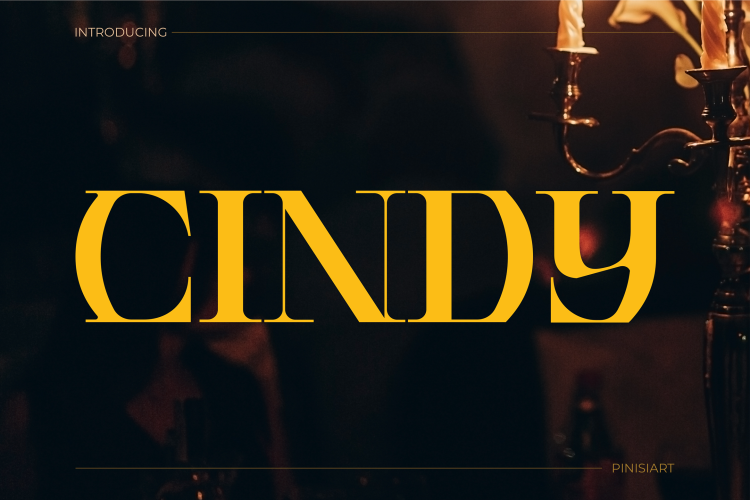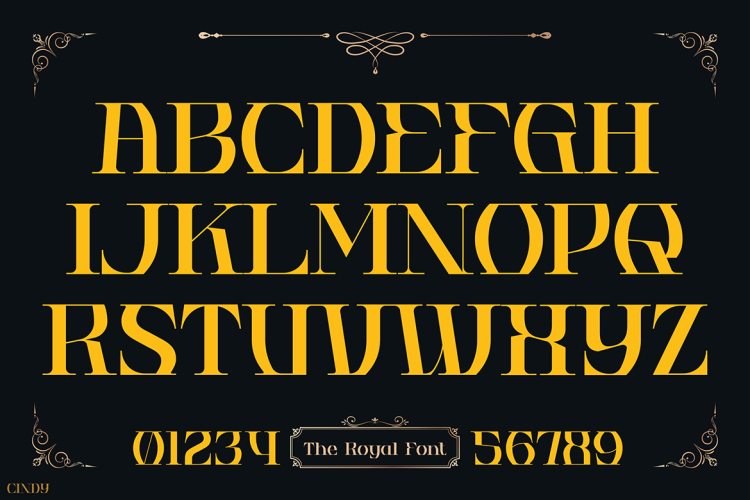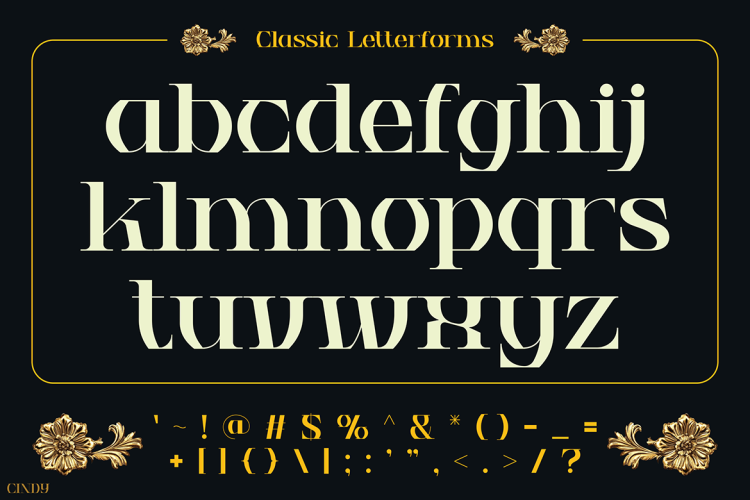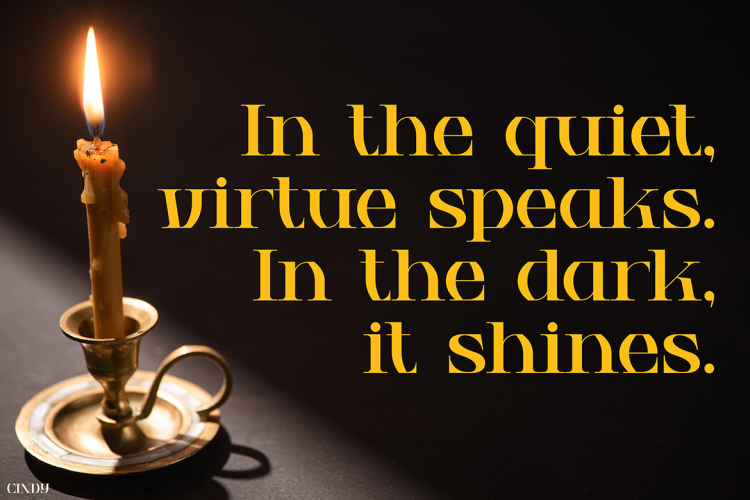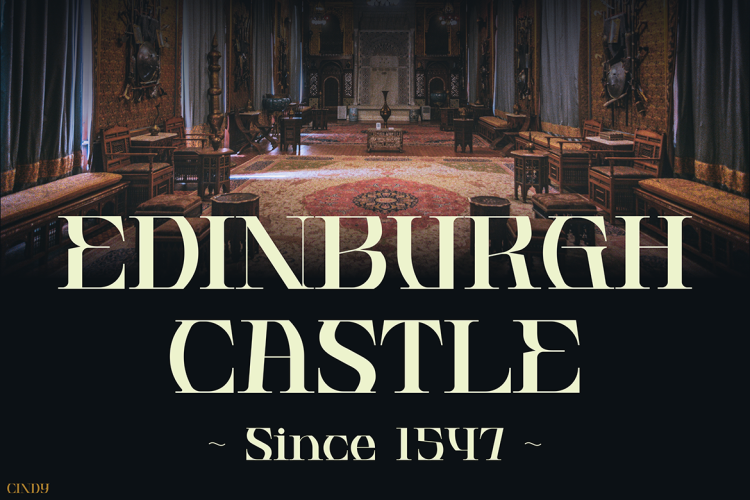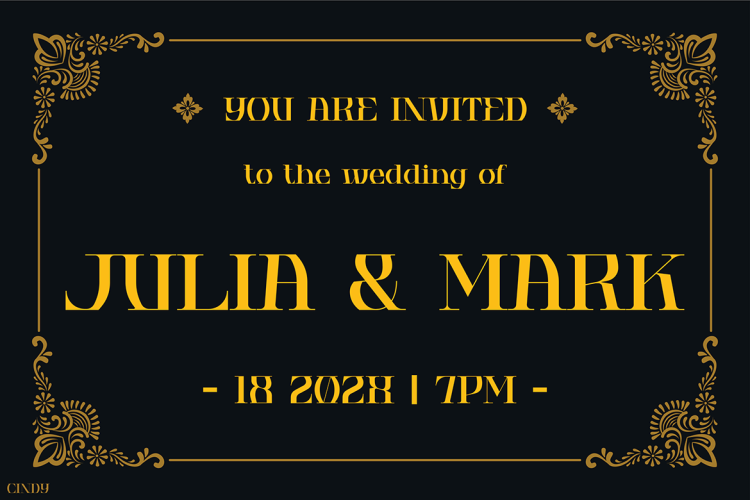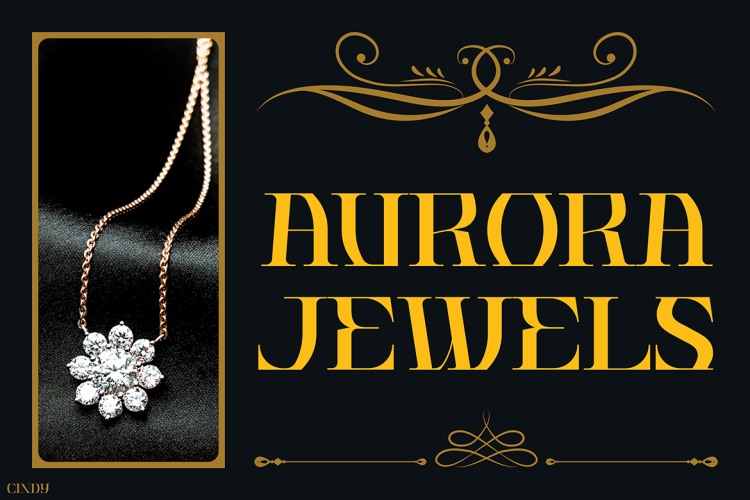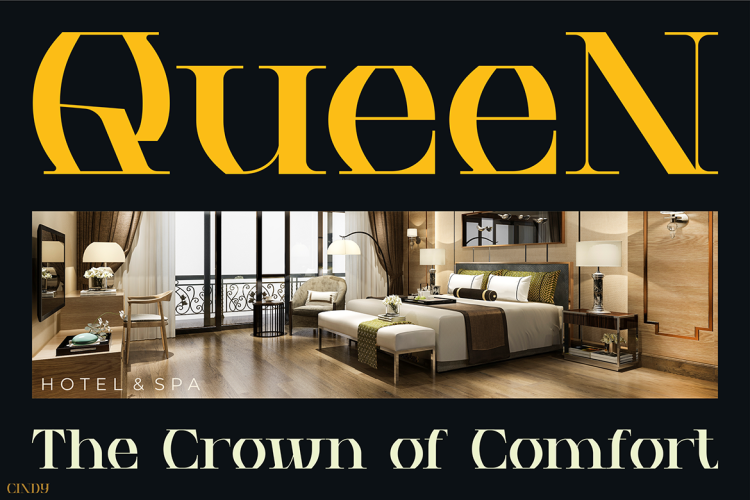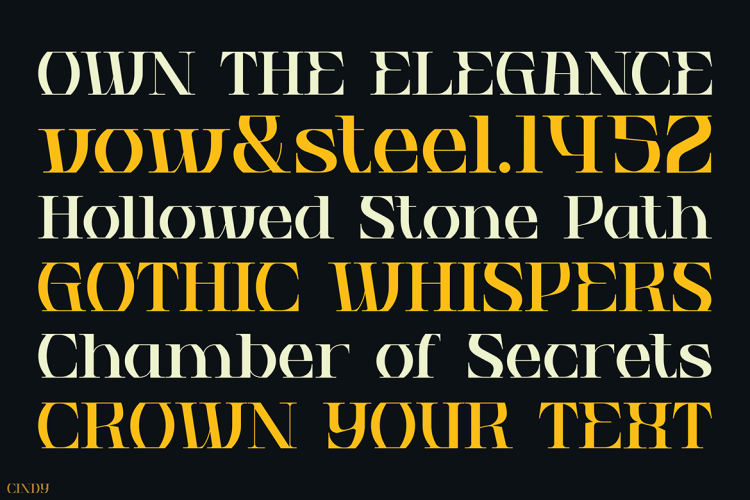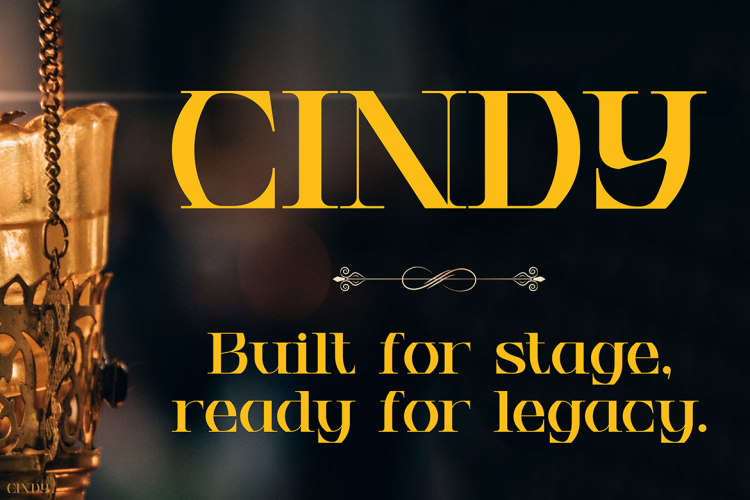
Instagram Font CINDY โ A Bold Elegance for Timeless Designs
Instagram Font CINDY instantly brings character and charm to your design projects. This elegant serif typeface merges vintage appeal with a modern twist, offering a unique blend of style and readability. As a result, every word you write with CINDY feels intentional, bold, and beautiful.
Its sharp serifs, balanced strokes, and subtle curves create a timeless look that works well in various settings. For instance, it shines in wedding invitations, luxury branding, historical editorials, and Instagram graphics. Moreover, the fontโs uppercase letters provide dramatic flair, while the lowercase set adds warmth and softness to longer texts. Because of this versatility, CINDY adapts effortlessly across digital and print formats.
In addition to its stunning aesthetic, the font was built for performance. Every glyph is crafted for harmony and clarity, even at smaller sizes. Therefore, itโs not just a decorative fontโitโs a functional design tool. Whether you’re styling a product label, designing a hotel brochure, or creating cinematic social media visuals, CINDY adds elegance to every element.
Who Should Use Instagram Font CINDY?
Instagram Font CINDY is ideal for creatives and professionals who want their designs to feel high-end and memorable. For example, fashion designers can use it to elevate lookbooks, while wedding planners can feature it in invitations and signage. Additionally, influencers and lifestyle brands can use CINDY to create consistent, polished Instagram feeds.
Itโs especially suitable for:
Luxury branding and packaging
Event and wedding stationery
Content creators and digital marketers
Interior design firms and hospitality brands
Book covers and editorial projects
Design with Grace and Confidence
To sum up, Instagram Font CINDY offers more than just styleโit delivers story, substance, and sophistication. If you’re ready to transform your visuals with a font that leaves a lasting impression, CINDY is the perfect choice.